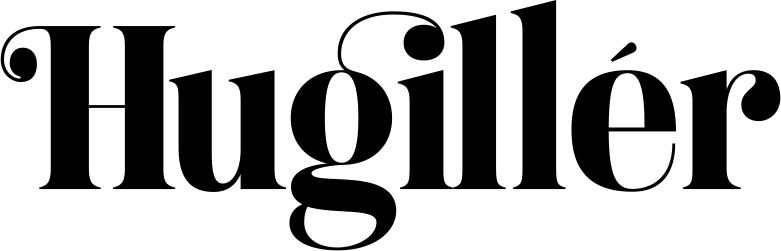
Hugiller Font
There is a reliability and establishment sense in a serif font that you can’t find in any other font like it. Hugiller is a perfect example that can bring that sophistication and professionalism easily to your content no matter if it’s a simple text or the title of a fashion magazine.
This ligature serif font offers you an extraordinary collection of characters containing both the uppercase and lowercase of the alphabets, the numbers, and the punctuation marks.